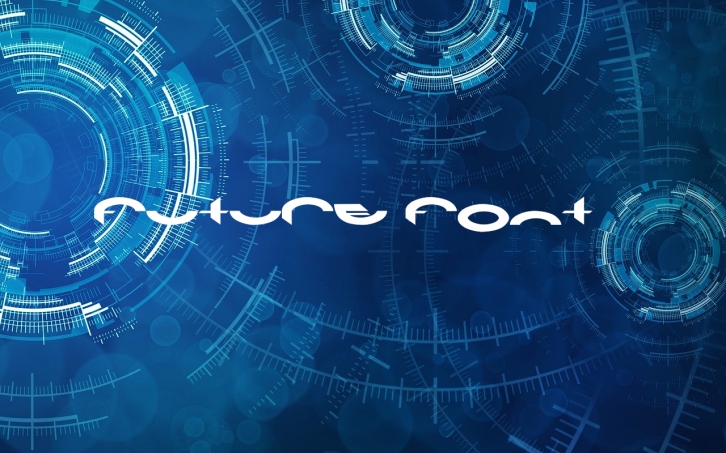
Future is a modern, techno decorative font. Well designed and with stylish characters, this font is perfect for various designs. Due to its neat and unique style, this font has the potential to become your favorite go-to font, no matter the occasion!